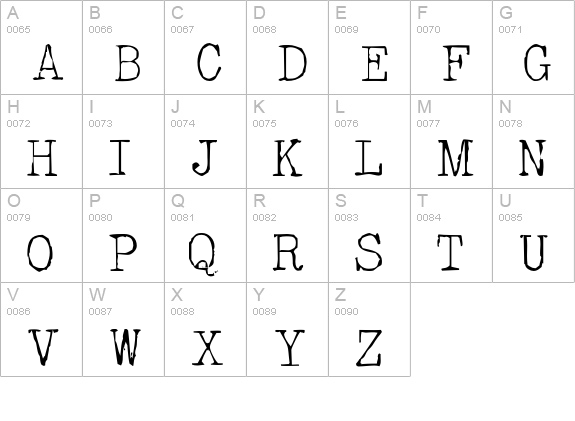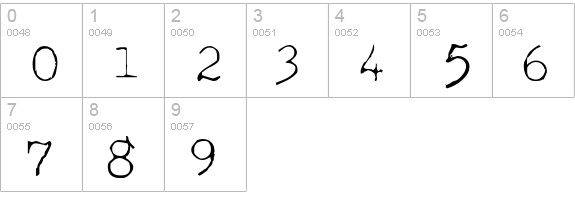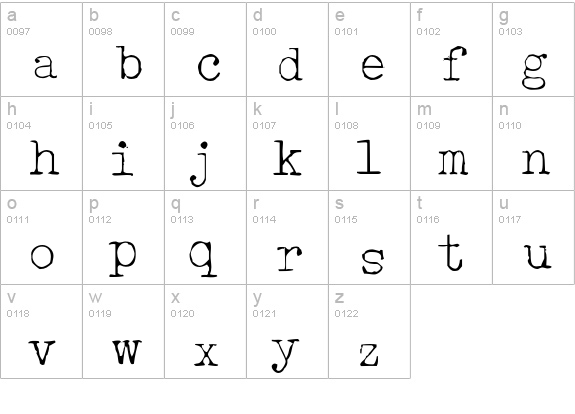
AcousticLight Font Details
AcousticLight font is a beautiful and elegant typeface that exudes sophistication and charm. With its delicate curves and stylish design, this font is perfect for adding a touch of class to any project. The light weight of the font gives it a subtle and airy appearance, making it ideal for use in headers, quotes, and other design elements where a refined touch is desired. What's even better is that AcousticLight font is completely free to download at FontsMarket.com. This means you can easily add this stunning font to your collection without having to spend a dime. Whether you're working on a personal project or a professional design, AcousticLight font is sure to elevate your work and leave a lasting impression. Download it today and bring a touch of elegance to your designs!